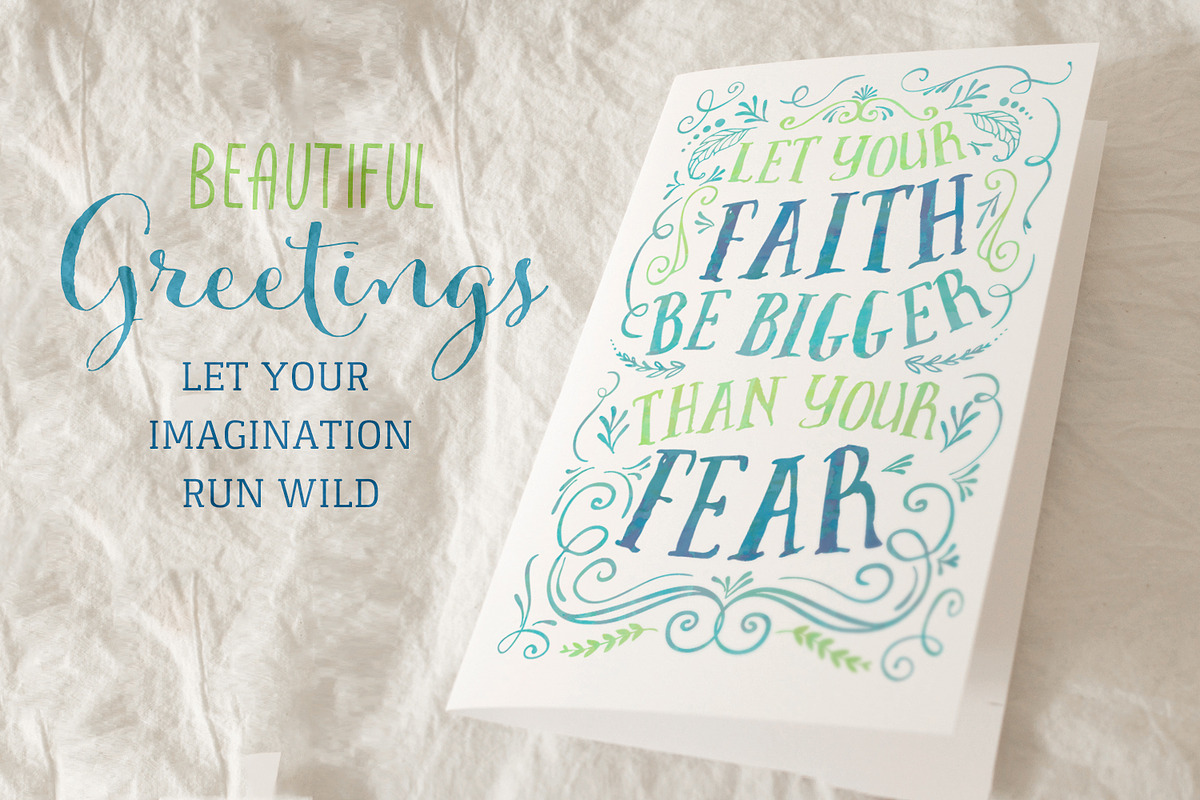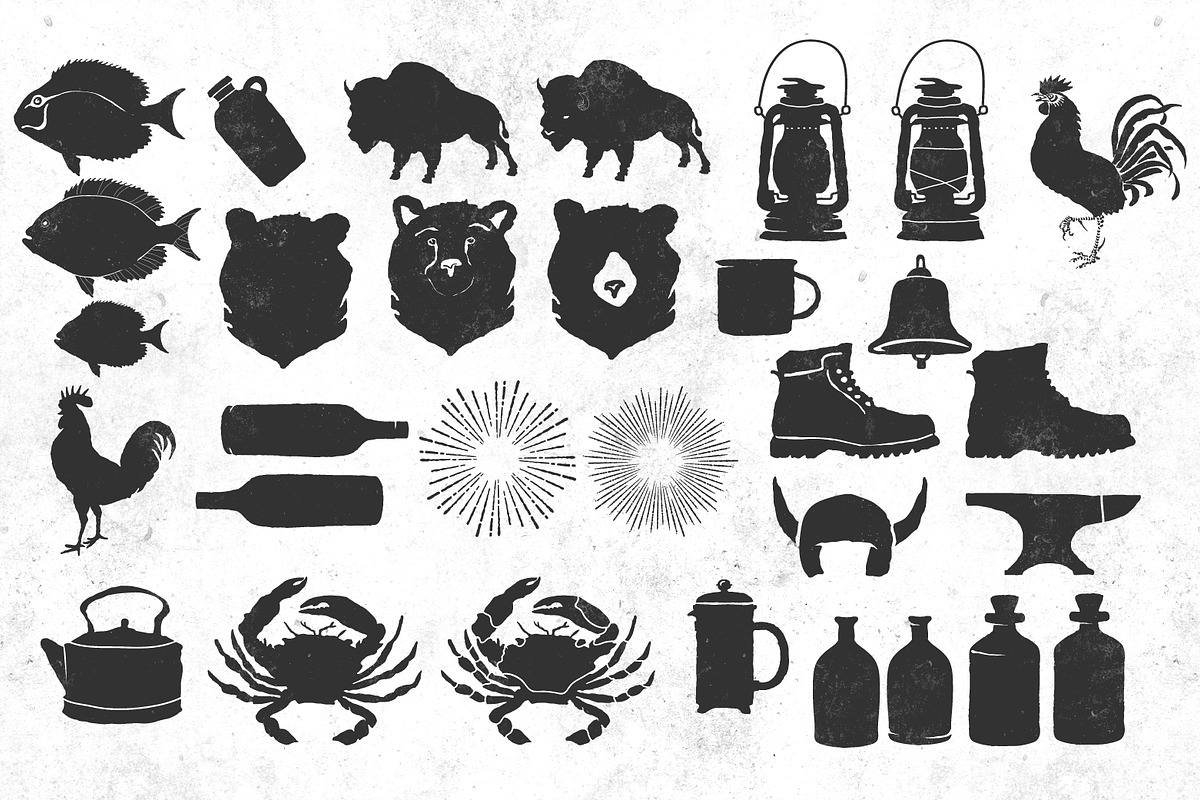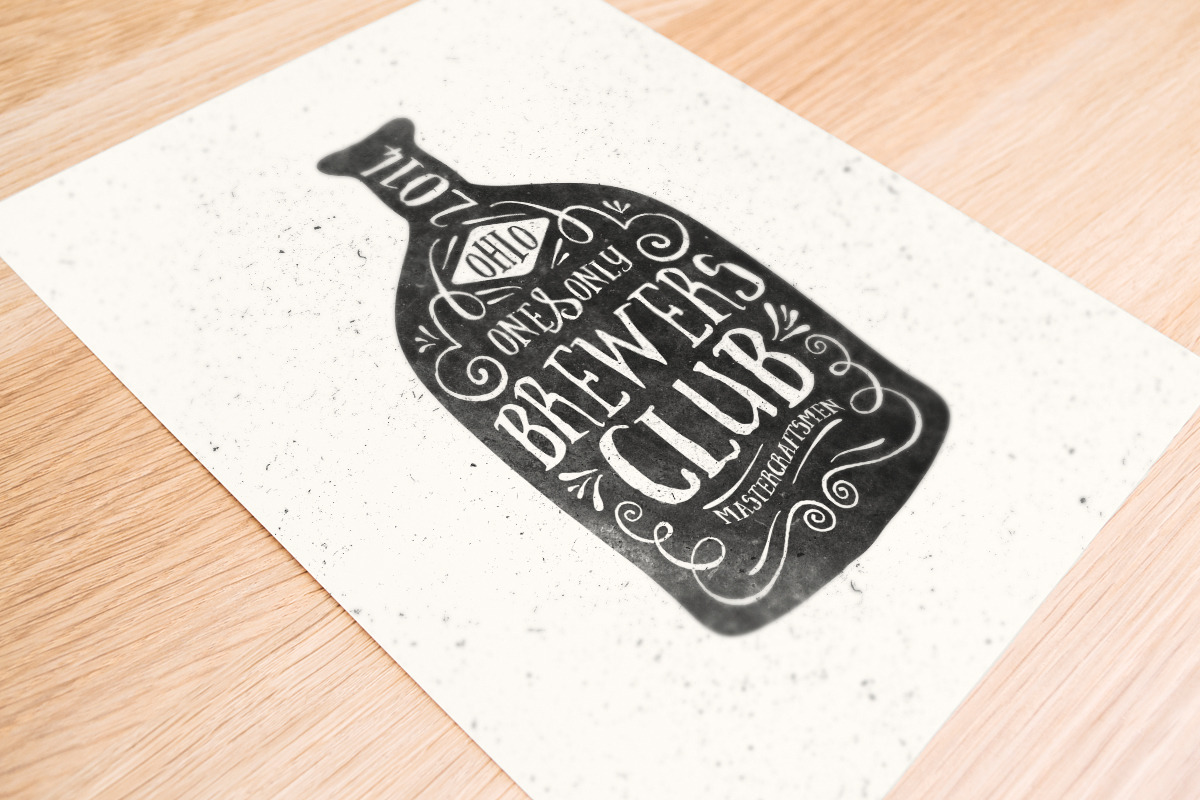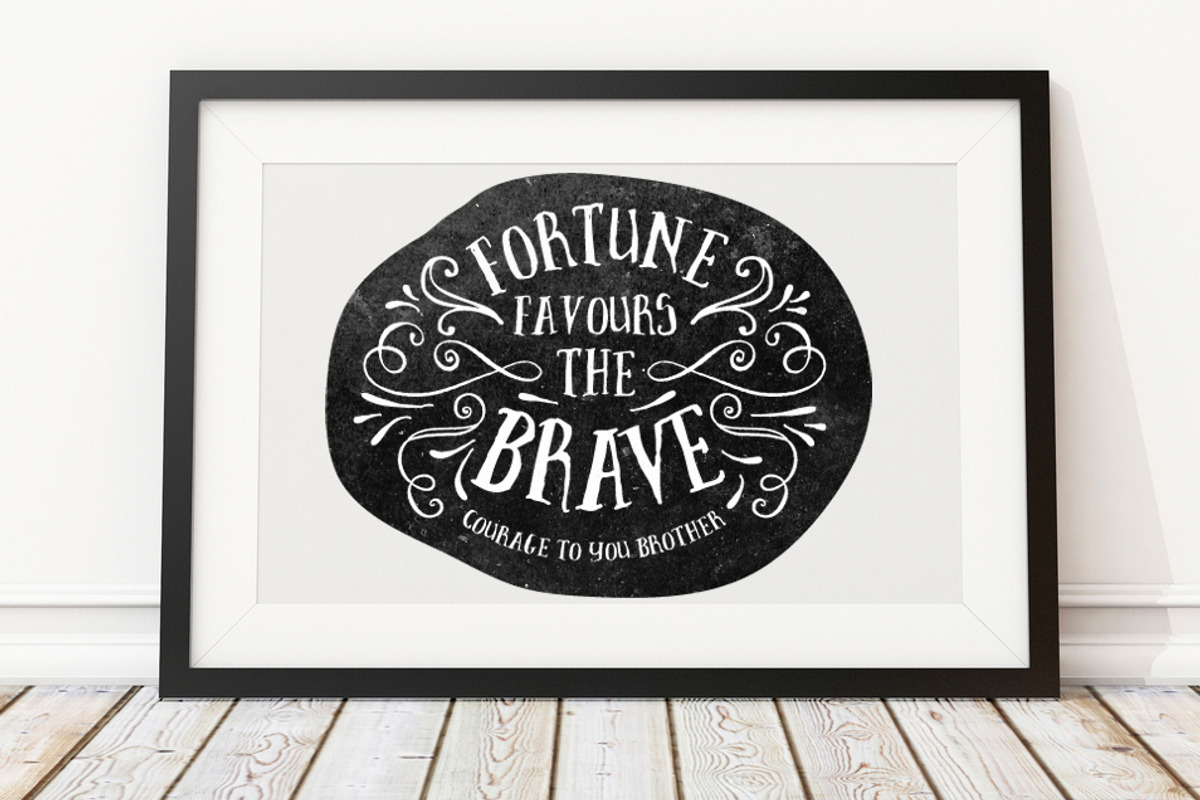
Brave New Font Pack & Graphic Extras
Brave New Font Pack & Graphic Extras by Nicky Laatz is a font selected for branding, posters, packaging, typography.
- This is more than just a typeface - this is a pack, and it allows you to be even more creative than you would have been with just the font :
Brave New Font Pack & Graphic Extras by Nicky Laatz fits naturally into Branding, posters, packaging, typography.